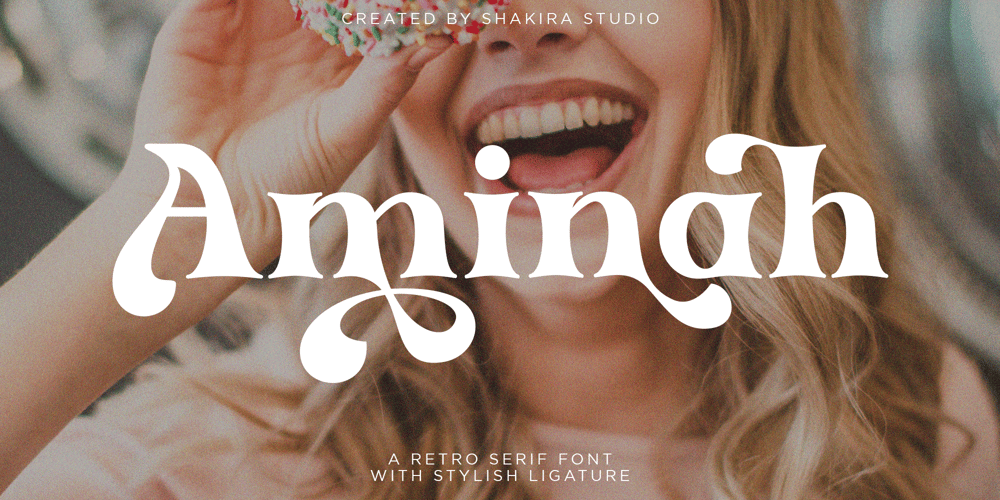
Aminah
Aminah font
Aminah Font Family was designed by Idhham Cholid Rikzano Yahya and published by Shakira Studio. Aminah contains 1 styles and family package options. Start good day for new font! present to you, Aminah!Aminah is a retro serif font that brings a classic and charming vintage touch to your designs. This font combines elegant serif elements with a stylish retro feel, creating a unique and eye-catching combination.Aminah is suitable for use in a variety of retro design projects, such as posters, greeting cards, logo designs, and brand displays that want to convey a vintage, classic yet modern feel.With Aminah, you’ll have an elegant, stylish, and full of character retro serif font with a large selection of ligatures to bring that special touch to each of your designs. This font will be the perfect choice for designers who want to explore design inspiration from the classic retro era but still trendy.What did you get? Unique letterforms Works on PC & Mac Simple Installations Accessible in the Adobe Illustrator, Adobe Photoshop, Microsoft Word even work on Canva! PUA Encoded Characters Fully accessible without additional design software. I really hope you’ll get pleasure using Aminah font and it will be perfect addition to your font collection! If you have some questions, please write me a letter!Shakira Studio